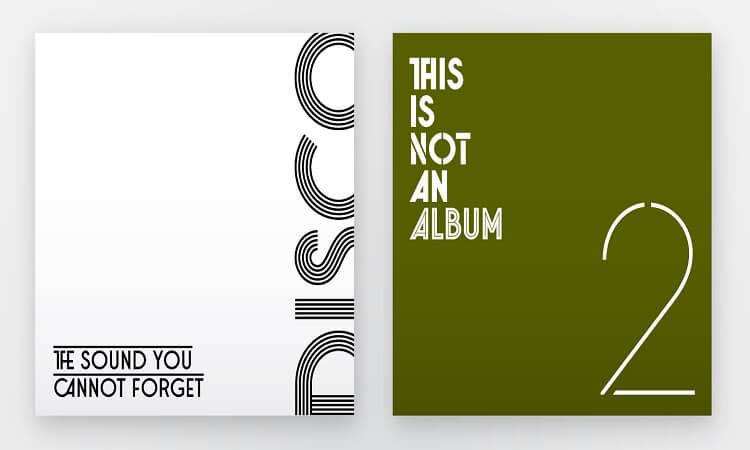
Stereonic Font Family
I won’t take up too much of your time! I’d want to recommend a font family that is ideal for any project and would like to use. The Stereonic Font Family is now available! Mint Type created and published Stereonic. It is a geometric display sans with Art Deco influences. Its 38 fonts in five weights can be used to depict a variety of moods and styles typical of different decades. Music posters, as the name implies, were deemed the ideal application for this typeface, but utilizing it in magazines and other editorials will undoubtedly add style.
Stereonic is also a great choice for logotypes because of the range of ligatures and alternatives offered. Almost all of the OpenType capabilities are supported by this lovely typeface. Simply tweak the on/off of the texture layers within them to have the textures shredded by the paper without modifying the interesting Stereonic Font Family. Users can generate additional experience and experience in the course of using the product by including features and scenarios into the design of the attractive Stereonic Font Family. The principle of visual depth brought about by light and shade of color should constantly be kept in mind.
| Name | Stereonic Font Family |
| Style | Display |
| Designer | Mint Type, Oleh Lishchuk. |